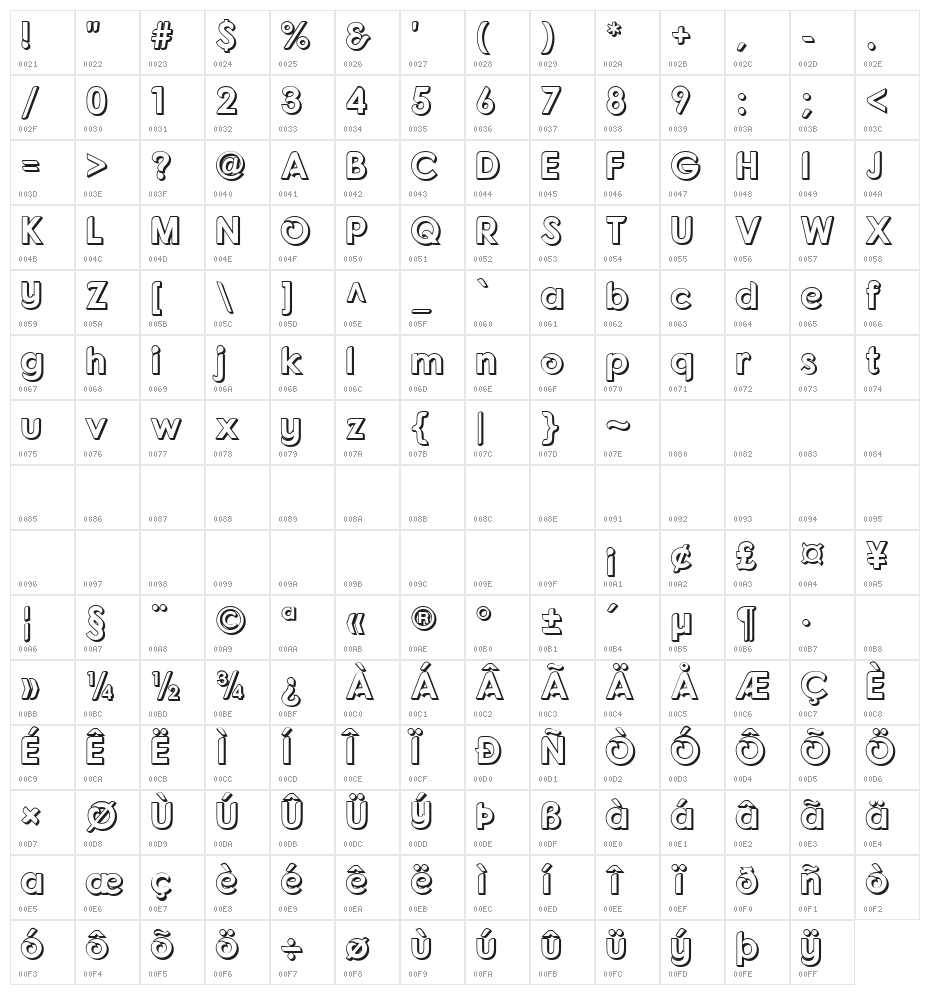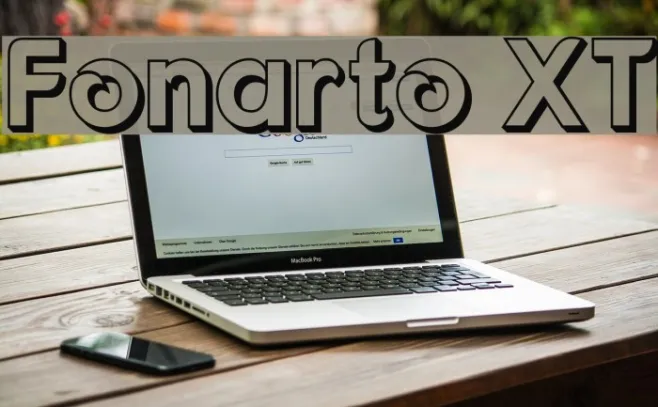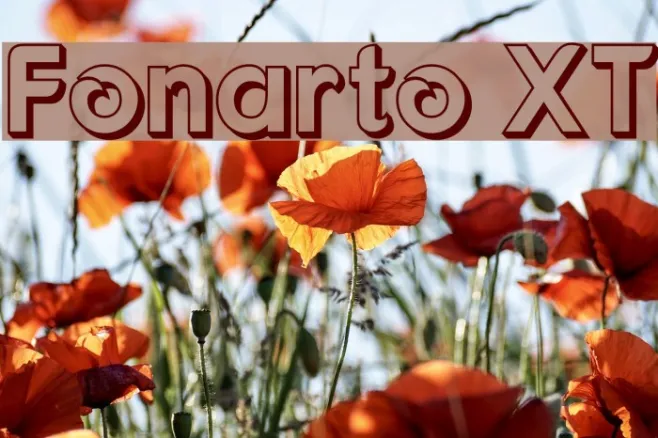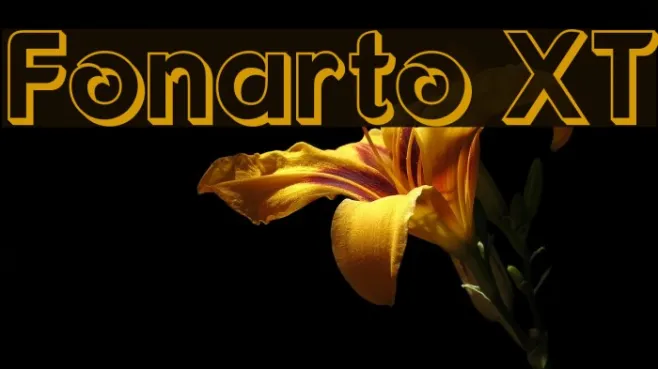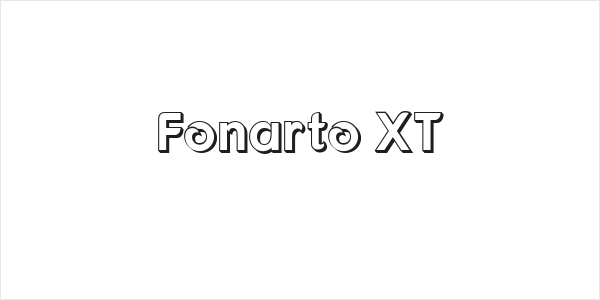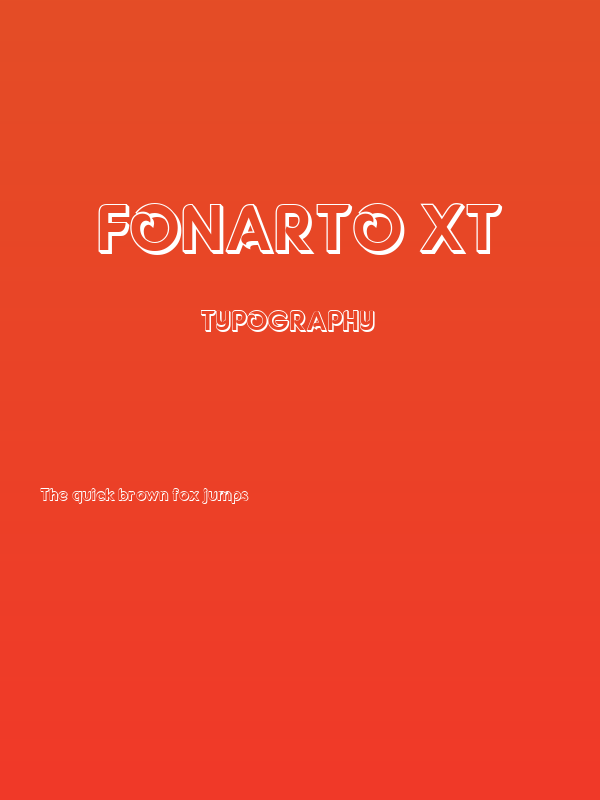
Fonarto XT Font
Fonarto XT Description
This font features a bold, outlined style that combines modern aesthetics with a playful touch. The uppercase and lowercase letters maintain a consistent thickness, providing a harmonious look across all characters. The numbers and special characters are designed to match the overall style, ensuring uniformity. The font's outline adds a dimensional effect, making it stand out in various applications. Its clean lines and geometric shapes make it versatile for both digital and print media.
| Proposed Projects | Ideal for headlines, posters, logos, and branding materials that require a bold and eye-catching appearance. |